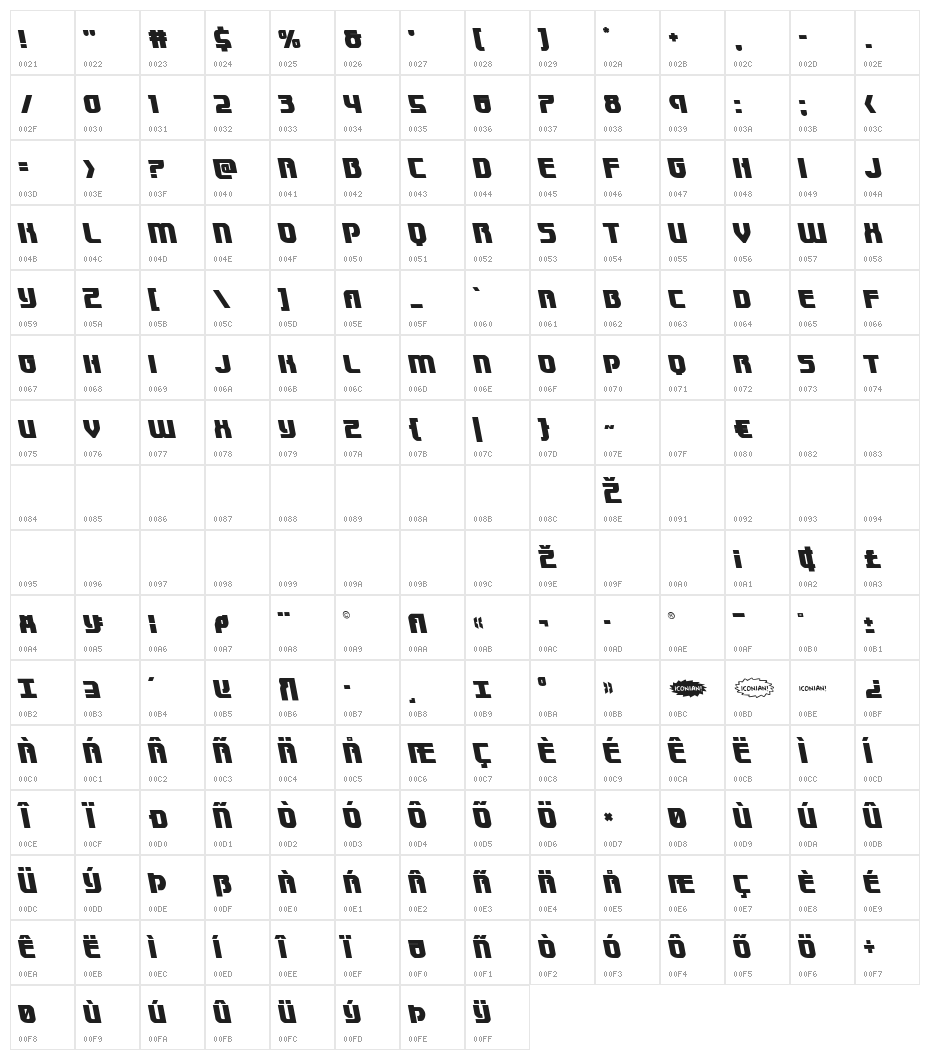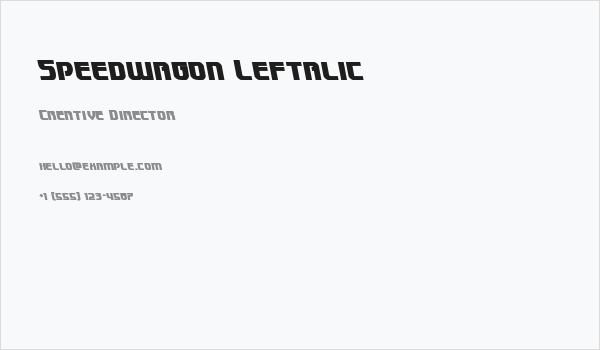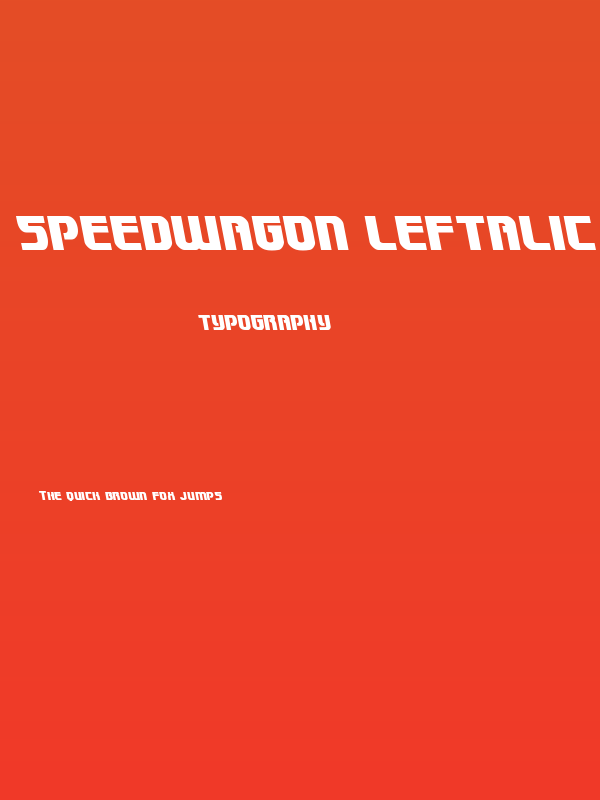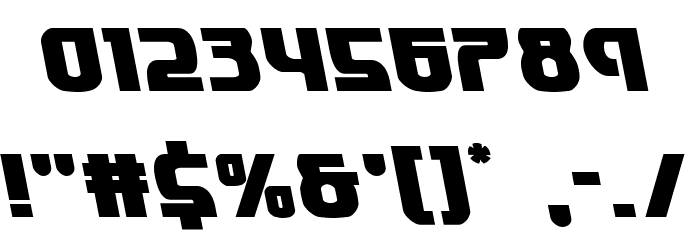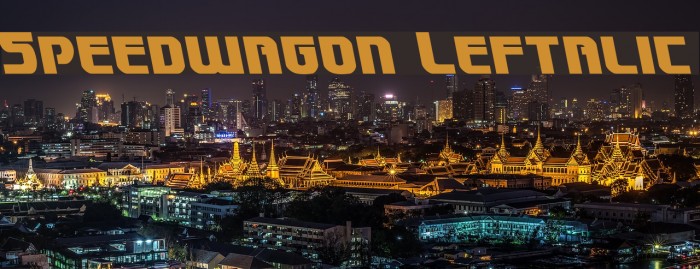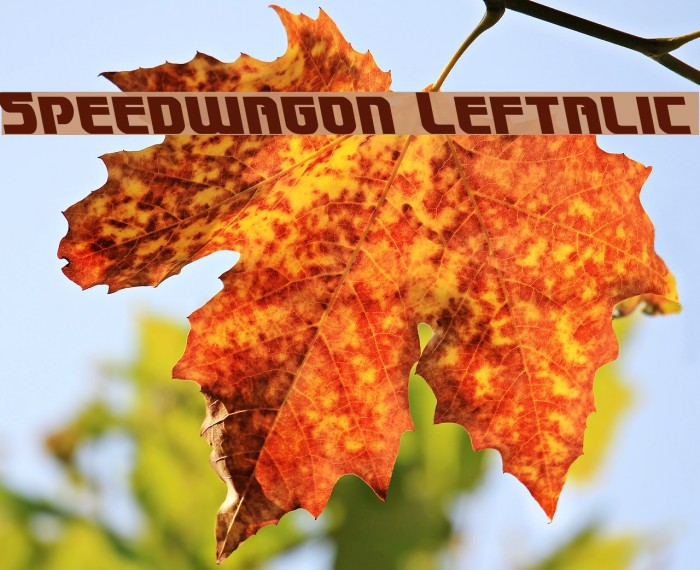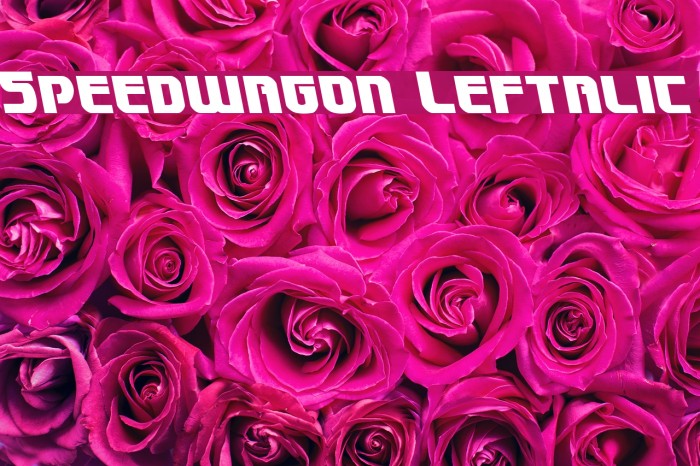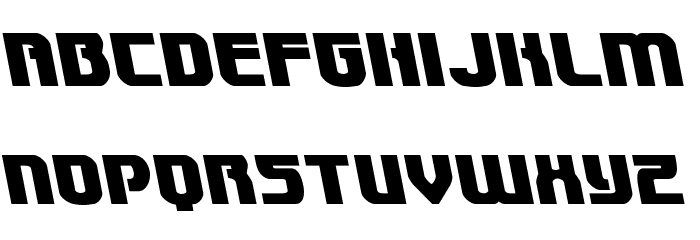
Speedwagon Leftalic Font
Speedwagon Leftalic Description
This font features a bold, angular design with a distinct slant to the left, giving it a dynamic and energetic appearance. The characters are wide and blocky, with sharp edges and a strong presence. The uppercase and lowercase letters maintain a consistent style, with the lowercase slightly smaller but equally bold. Numbers and special characters follow the same angular and slanted design, ensuring uniformity across all glyphs. The font's style is reminiscent of retro or vintage themes, yet it maintains a modern edge due to its boldness and unique slant.
| Overall Style | Retro, Modern |
| Proposed Projects | Ideal for projects requiring a strong, dynamic look such as sports branding, retro-themed posters, or video game titles. |